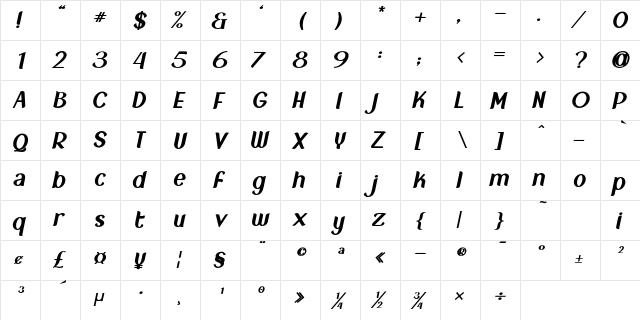
New Crown Black Italic_DEMO
| Designer | Omotu Studio 2020 |
Design Context for New Crown Typeface
New Crown is a composed and adaptable typeface that performs quietly and consistently across a wide range of design contexts. Its italic angle brings a sense of urgency and motion to the letterforms.
Pro Tip: Use New Crown for emphasis, pull quotes, and subheadings where its slanted energy can add rhythm to the layout.